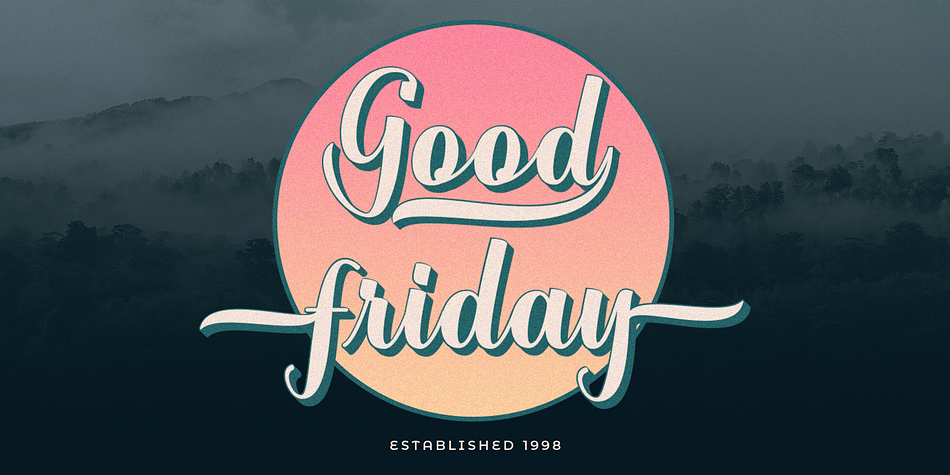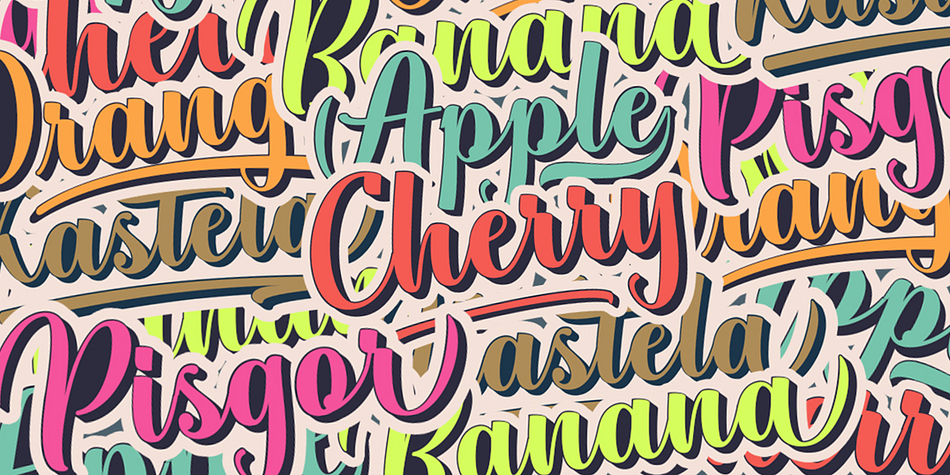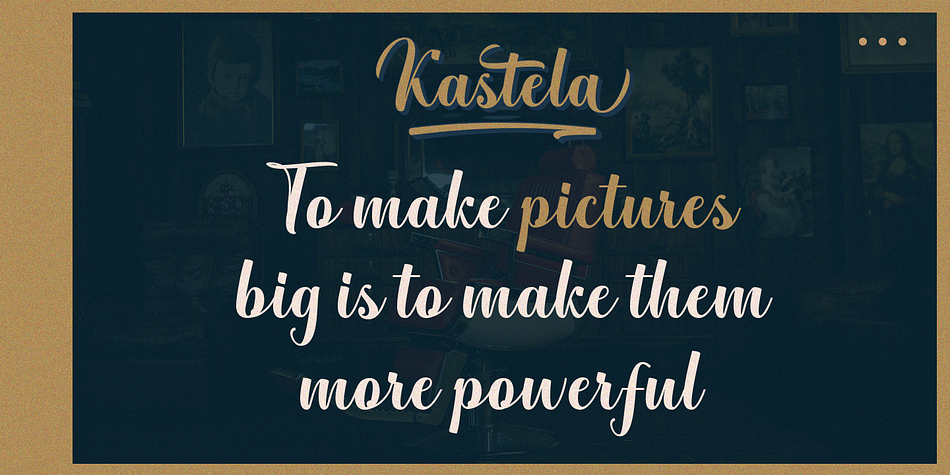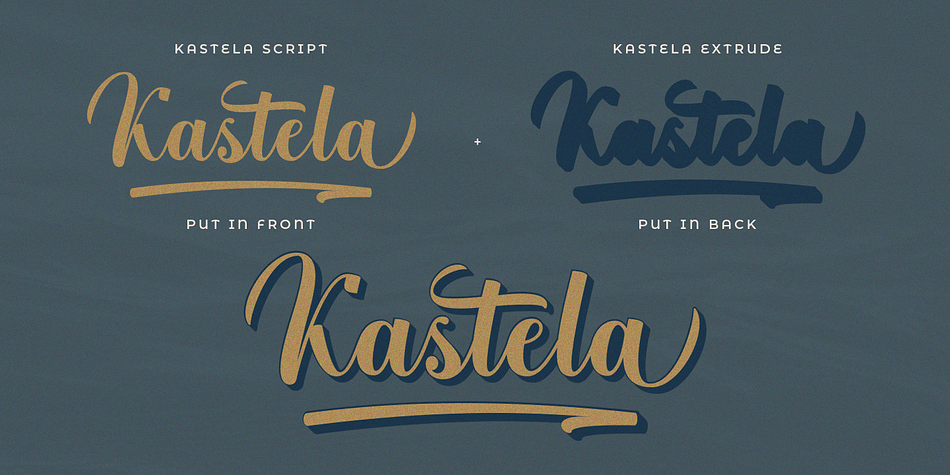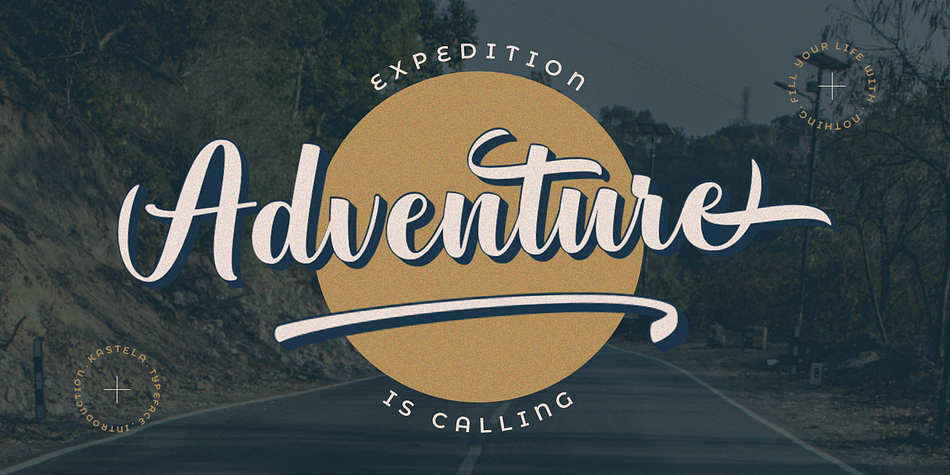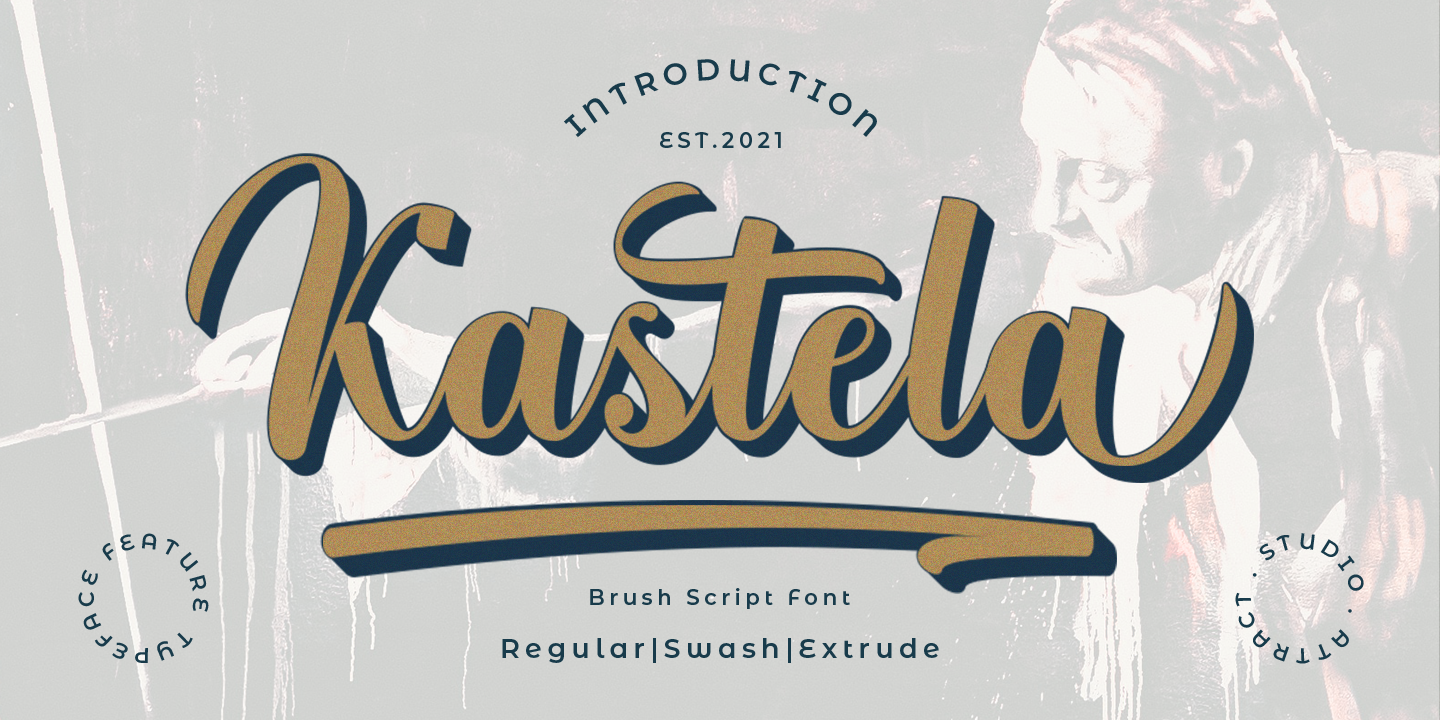
Kastela
Kastela is a brush script and dingbat font family. This typeface has three styles and was published by Attract Studio.
Kastela is a brush script font. It is inspired by brush lettering and has a soft and welcoming look. Kastela can be used for branding, logos, packaging and wherever you need a script font that is easy to read and smooth.
Kastela has many ties, strokes, and alternative characters that will make your designs unique and beautiful. All Style Alternatives also have language support.